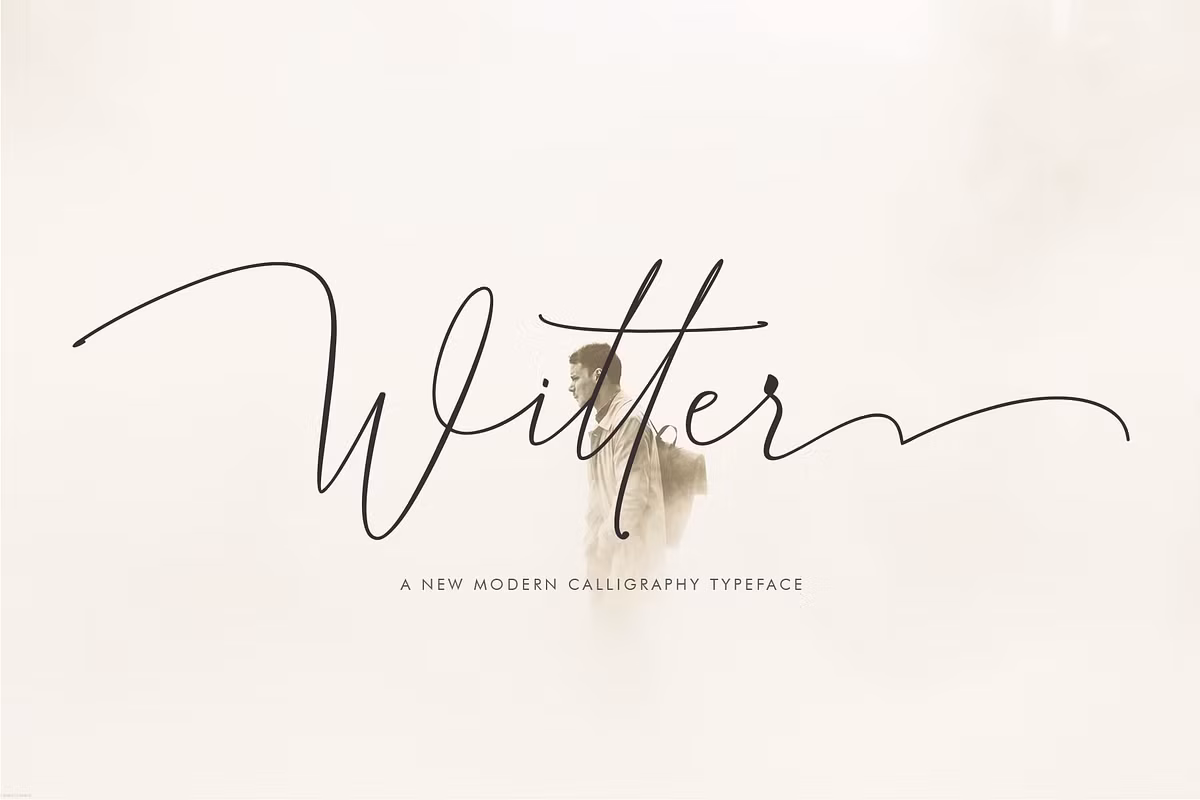
Witter Font Free Download is a clean, modern typeface that brings elegance and sophistication to any design project. With its sleek lines and subtle curves, this font is ideal for minimalist branding, professional presentations, stylish packaging, and digital content. Whether you're designing a website header or creating a standout logo, Witter Font offers the perfect balance of readability and personality.
This font is especially popular among creatives looking for a timeless and versatile look. Its refined style makes it suitable for both print and screen, ensuring your message is communicated clearly and beautifully across platforms. If you're seeking a font that delivers professionalism with a touch of class, Witter Font Free Download is a top choice.